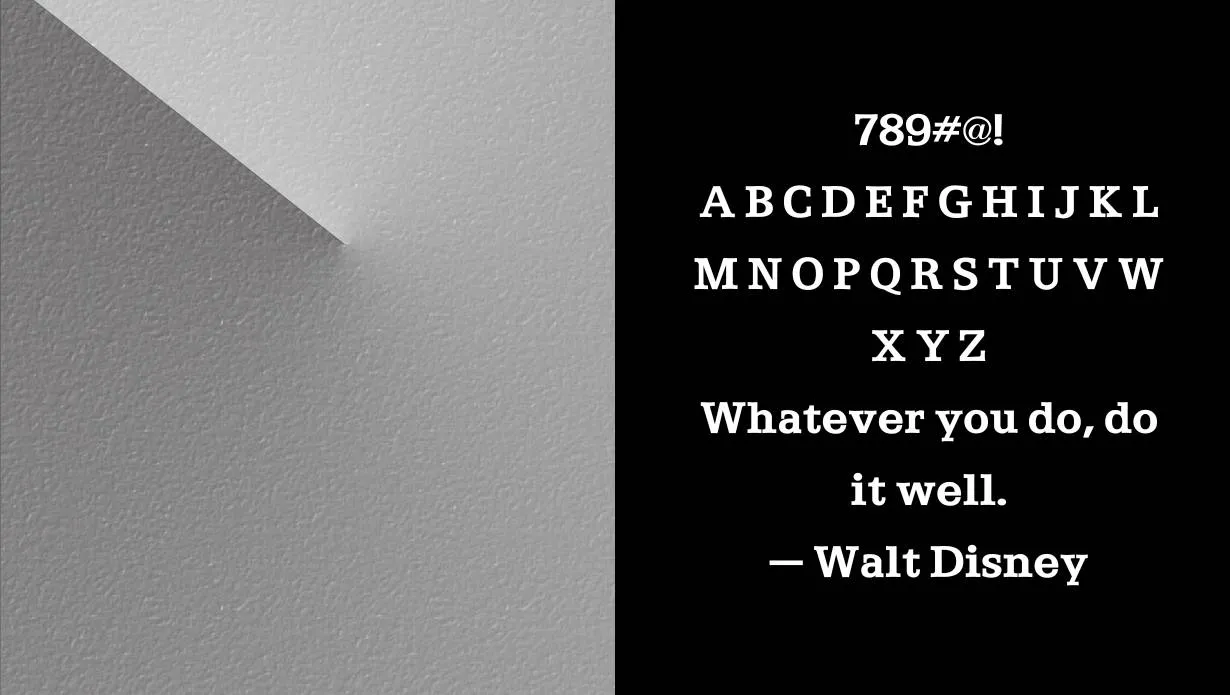
Egyptian Font is a serif typeface that was created in the early 20th century by William Caslon. This Font has a very charming look, with its high contrast between the characters, and its serifs.
This typeface design comprised attractive glyphs including swashes, ligatures, numerals, and characters. If you want to use it for pairing, then the tinkerbell font is an outstanding typeface that makes a very attractive pair with this font.
Egyptian Font Family